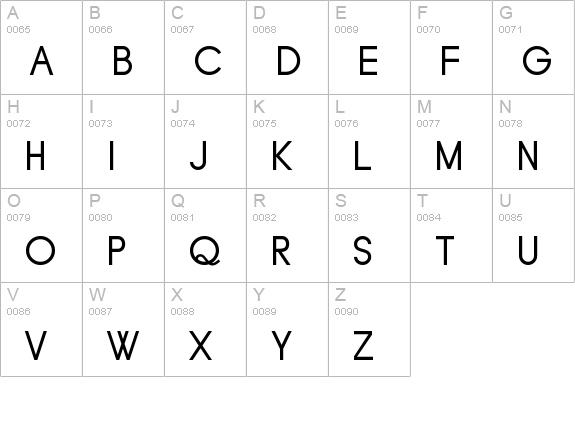
Introducing Typo Grotesk, a modern and versatile font that combines clean lines with a touch of playfulness. This typeface is perfect for those seeking a bold and impactful design, whether it's for branding, advertising, or any other creative project. With its sleek and elegant appearance, Typo Grotesk adds a contemporary twist to any layout. Its carefully crafted letterforms ensure readability and legibility, making it suitable for both print and digital mediums. From headlines to body text, this font adapts effortlessly to various sizes and contexts, maintaining its distinctive character throughout. What sets Typo Grotesk apart is not only its exceptional design, but also its accessibility. This font is available for free download at FontsMarket.com, allowing designers, artists, and enthusiasts alike to incorporate it into their work without any restrictions. The freedom to explore and experiment with Typo Grotesk opens up endless possibilities for creativity. Whether you're designing a sleek website, a captivating poster, or a striking logo, Typo Grotesk is your go-to choice. Its timeless appeal, combined with its versatility and availability, makes it an invaluable asset for any designer's toolkit. Embrace the power of Typo Grotesk and elevate your designs to new heights. Download this remarkable font for free at FontsMarket.com and unleash your creativity today.